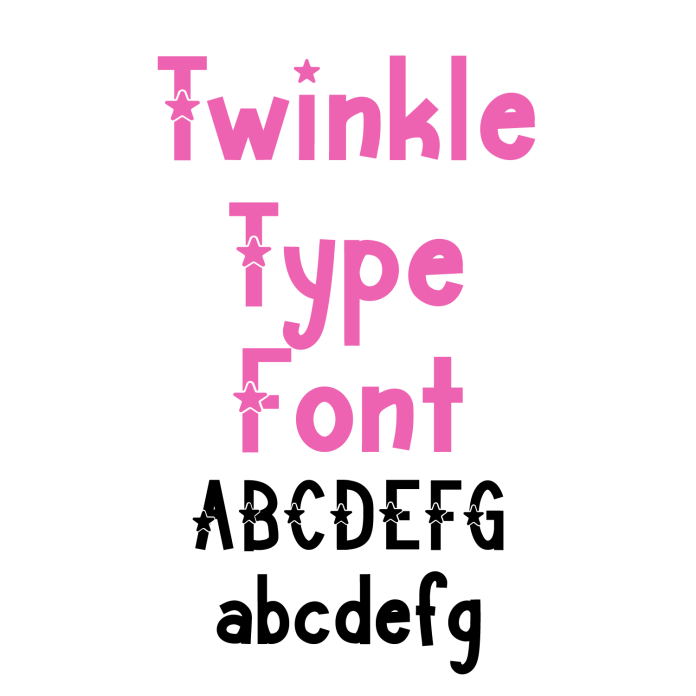
Introducing Twinkle Type Font—a sweet and cheerful playful handwritten sans serif font perfect for adding magic to your crafting projects! With its friendly curves and hand-drawn charm, Twinkle Type brings a lighthearted touch to stickers, greeting cards, labels, party invitations, classroom decor, and custom gifts. This easy-to-read, whimsical font is crafted for smooth, precise cuts on your cutting machine, making it ideal for vinyl projects, printables, and more. Whether you're designing for kids, celebrations, or just want a fun and joyful vibe, Twinkle Type Font makes your creations shine. Download now and let your creativity sparkle!